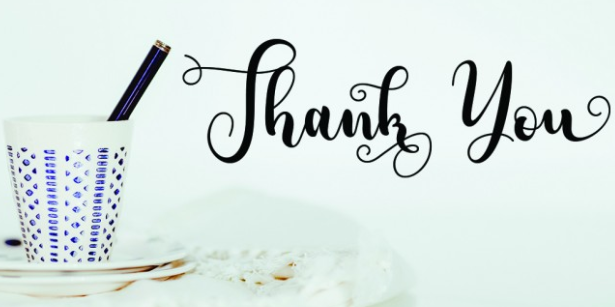
Adreena Script Font that is made with love.If you are seeking out a completely unique handwriting or calligraphic design for your design work. Then that is a perfect desire.
Adreena script is appropriate for branding, invitation, t-blouse, mailing, and different appropriate design you need.
It’s not the most effective ideal font for photograph designers however in case you are a photographer and would like to use text for your pix. Then this font is going to be a great desire for you. Because there are many photographers who’re already using this font in their photography work and getting high-quality consequences.
Adreena Script Font
Adreena Script Font can be used for branding, invitation, t-shirt, mailing, and other suitable design you want. The font comes with a unique look and ideal for mockups and business card designs.